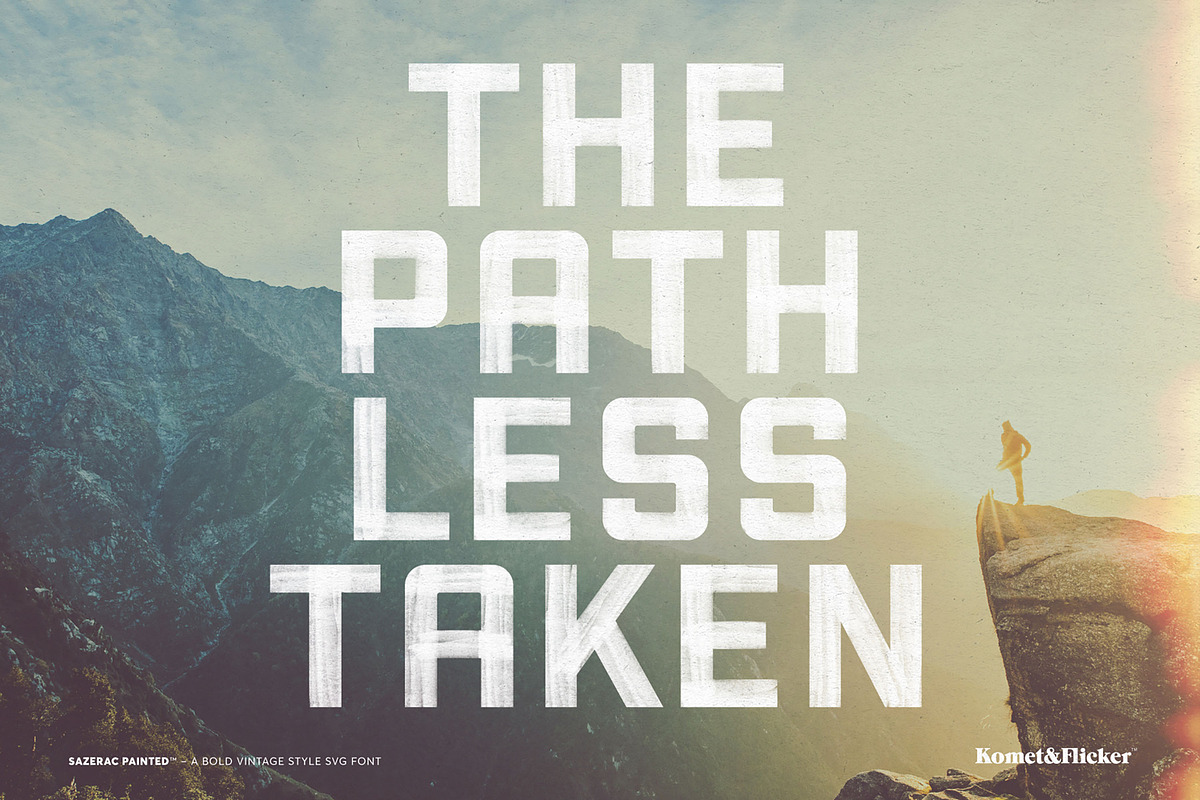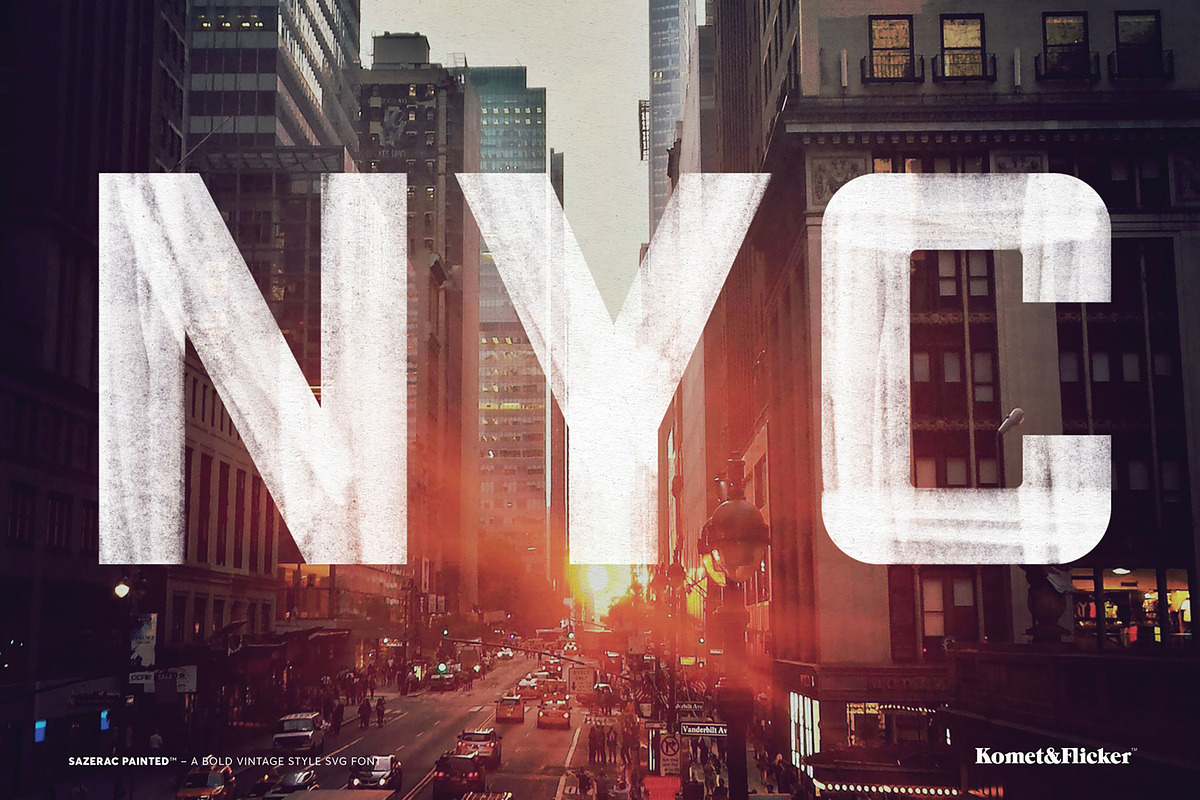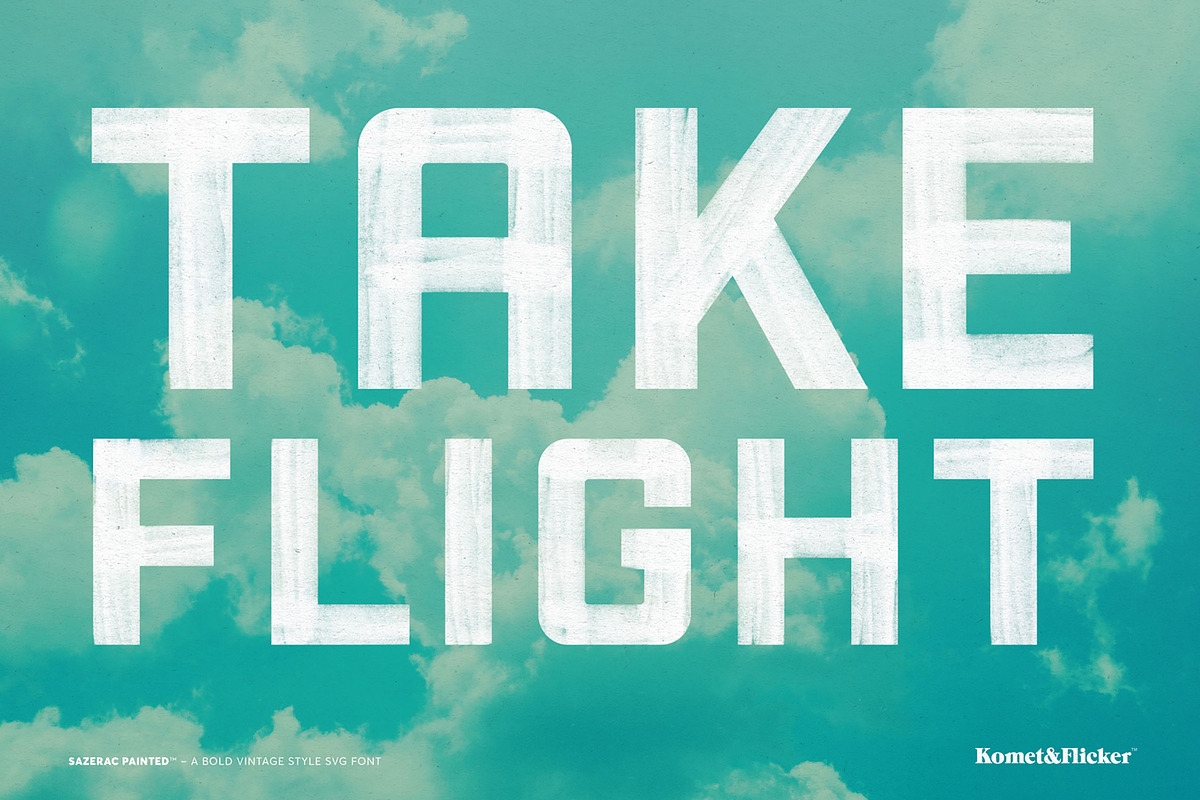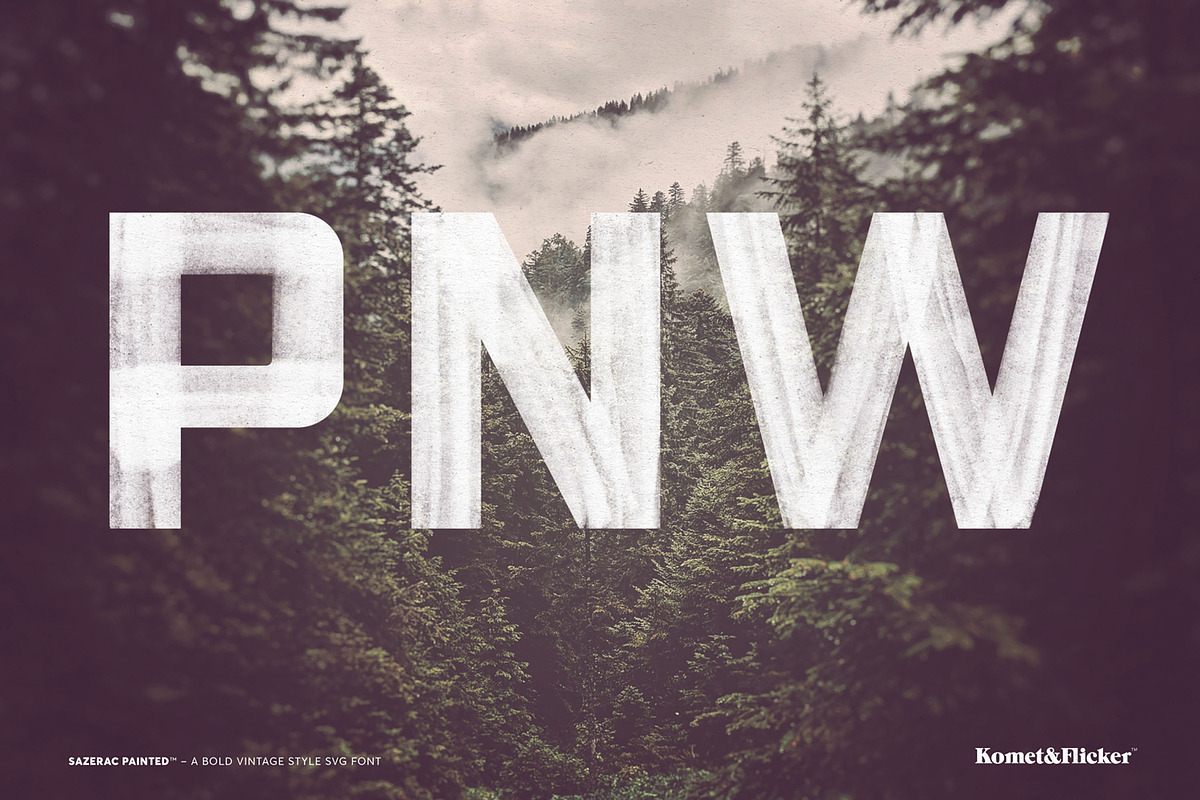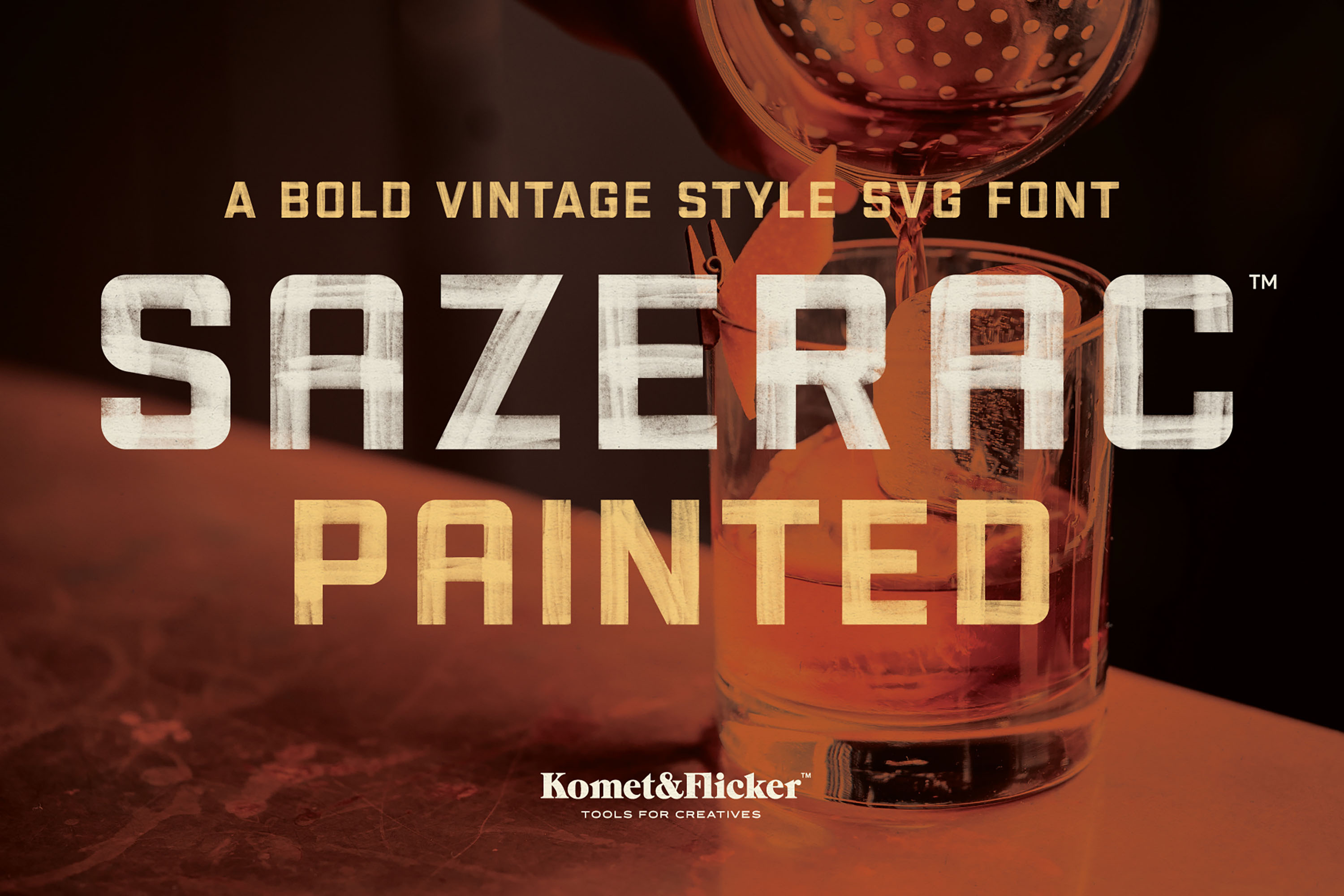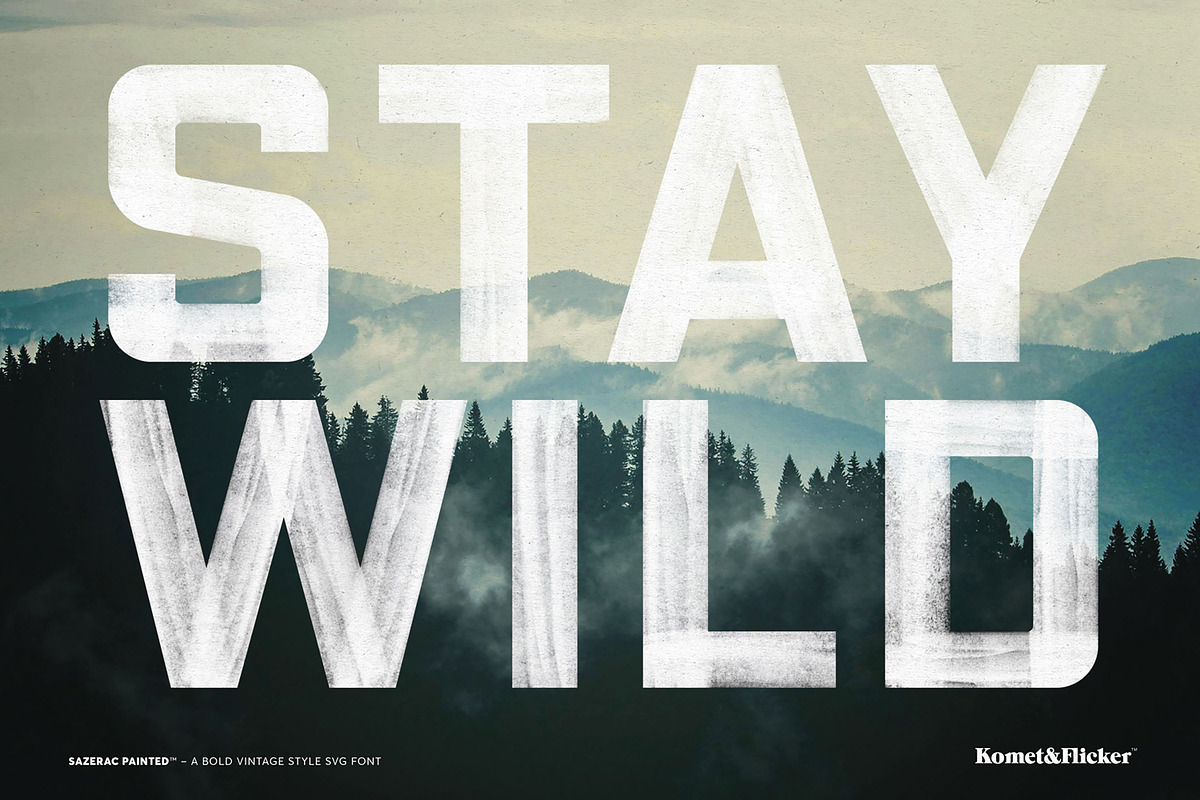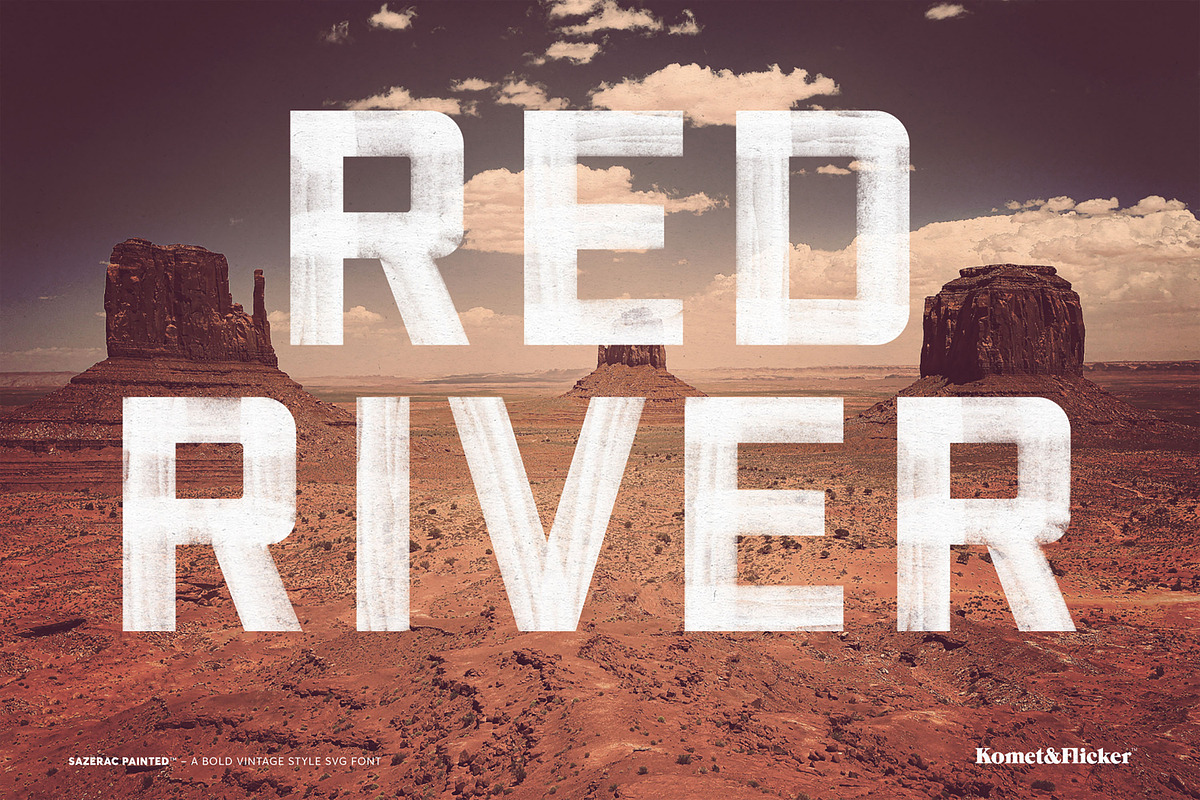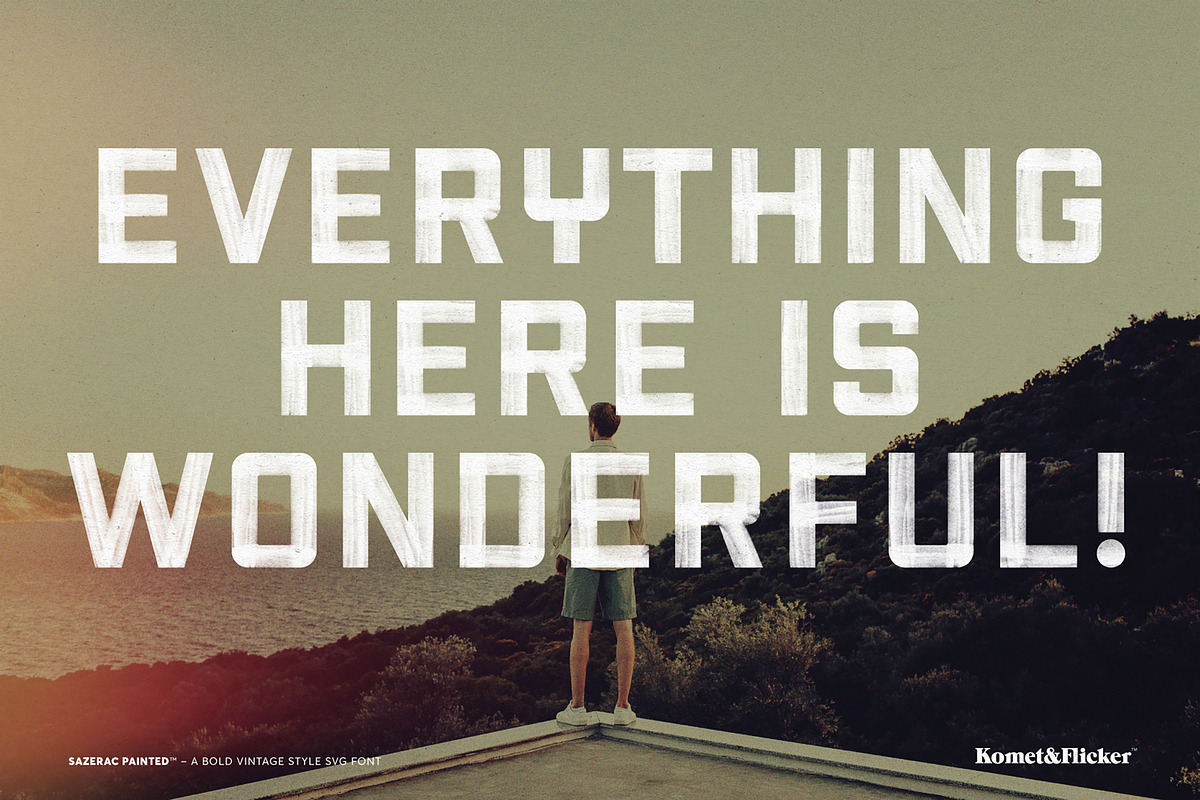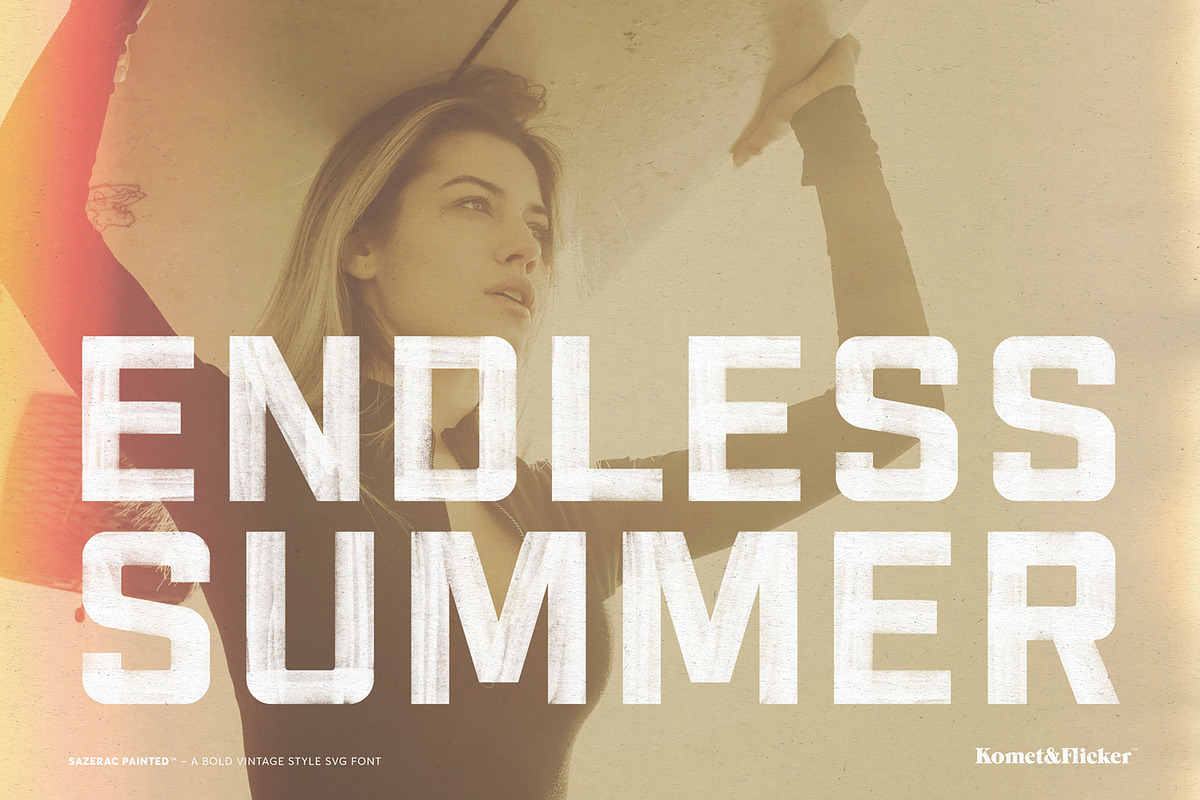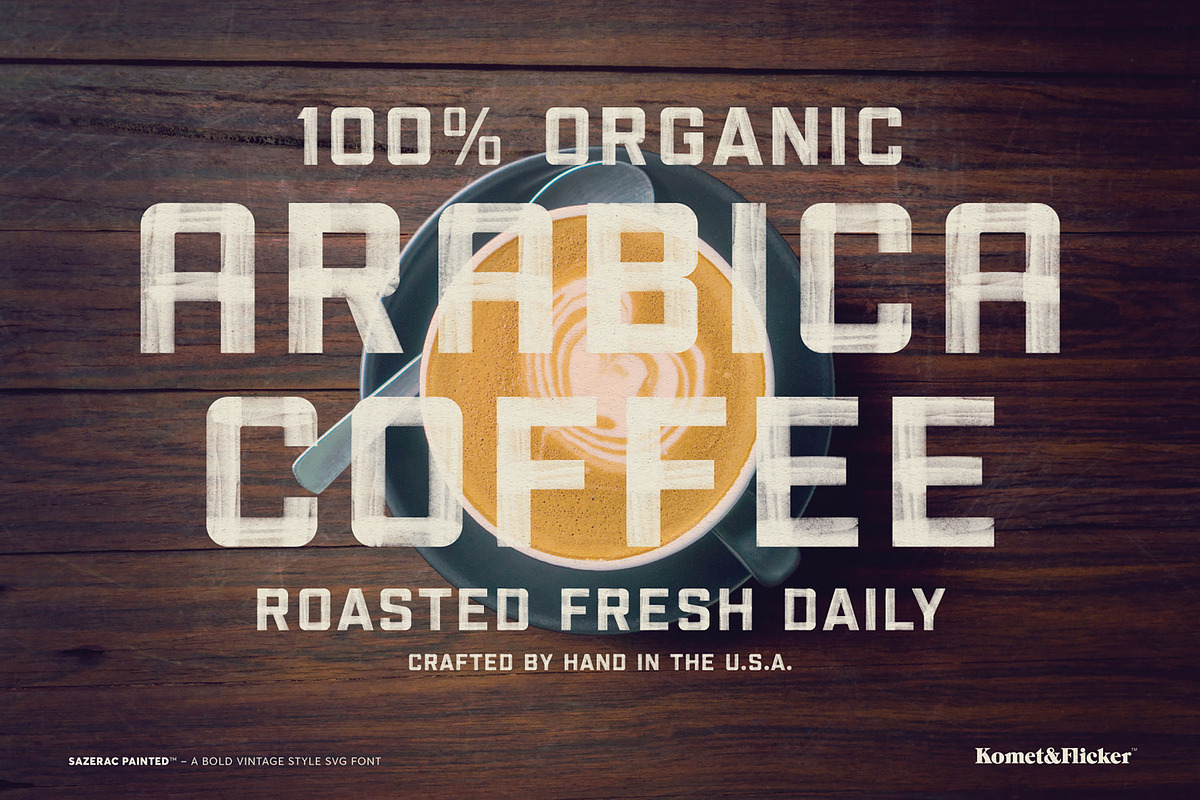
SAZERAC Painted – A Bold SVG Font
SAZERAC is a vintage inspired font that exudes strength and boldness in every character.
Each glyph in this font was hand painted to give a weathered and vintage look. Mix uppercase and lowercase characters to give a more random and natural look, especially in words with double letters.
This font is perfect for designs that require a powerful and confident aesthetic, such as logos, headlines, and branding materials. With its bold lines and classic design, SAZERAC is sure to stand the test of time and remain a timeless choice for any creative project. Whether you're creating a vintage-inspired design or simply looking for a font that commands attention, SAZERAC is sure to make a lasting impression.
- Alternate characters for A, M, Q, S, and Y